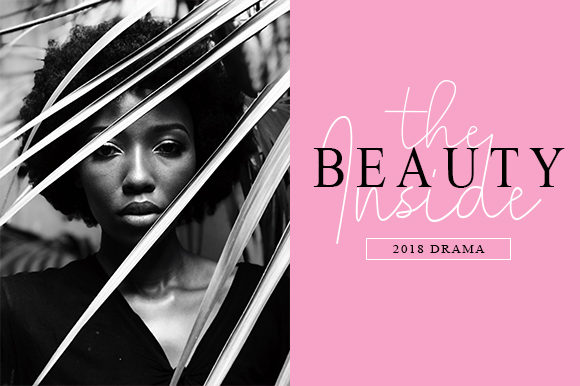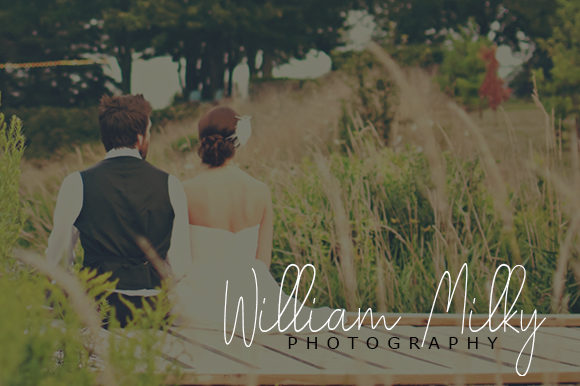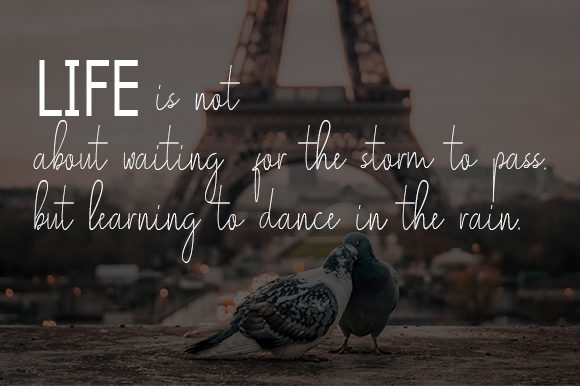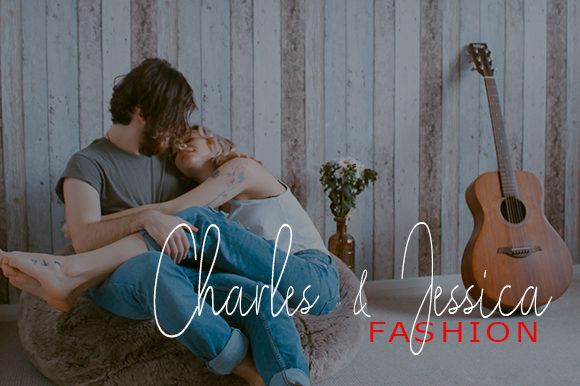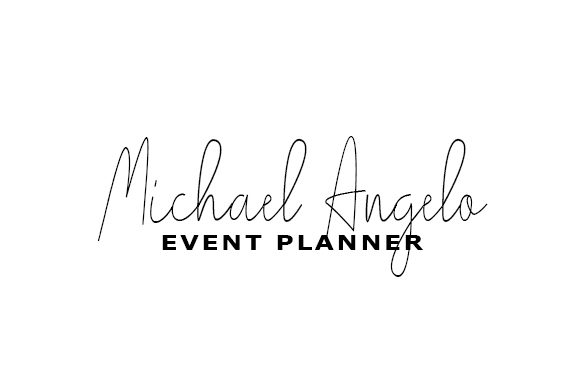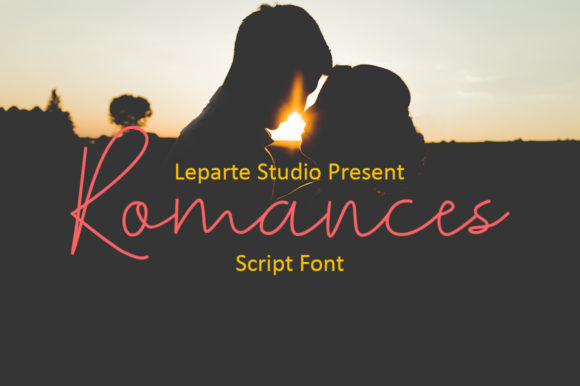
HomeScript FontsRomances Font Script Fonts Romances Font FacebookXPinterestWhatsApp Romances Font Poster 2 Romances Font Poster 3 Romances Font Poster 4 Romances Font Poster 5 Romances Font Poster 6 Romances Font Poster 7 About Romances Font Romances is a fun and bold handwritten font with a unique feel. It will turn any design project into a stand out! DOWNLOAD NOW People also explored Shanela Font Awaluna Font Rain Font Wincent Outline Extra Light Font Bubble Spoon Font Gingerbread Font Alyson Signature Font Haredang Font Special December Font 349 0 TagsRomances Font Previous articleBlack Currant FontNext articleAucklands Script Font LEAVE A REPLY Cancel reply Comment: Please enter your comment! Name:* Please enter your name here Email:* You have entered an incorrect email address! Please enter your email address here Website: Save my name, email, and website in this browser for the next time I comment. Personal Use Free New Amsterdam Personal Use Free Read more about this font Vembazax Rm Personal Use Free Read more about this font Tide Personal Use Free Read more about this font Ailand Personal Use Free Read more about this font BLOG Exploring Font Trends Shaping Communication in the Digital Era Fonts, like all design elements, are subject to trends. They play a crucial role in communicating a brand's personality,... Using Fonts in Digital Marketing: Tips to Strengthen Your Brand Identity Where to Buy American Fonts Online in 2024 How to Install and Use Fonts on Windows, macOS, and Web Projects